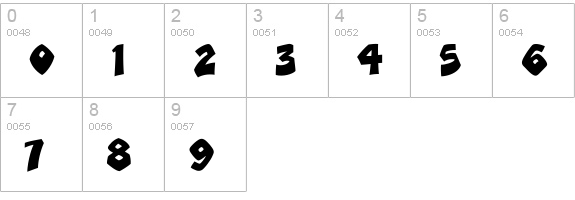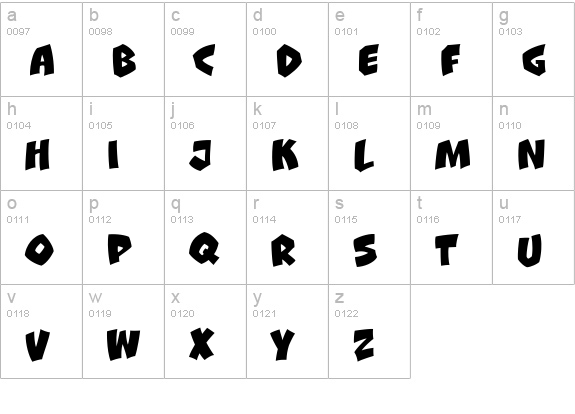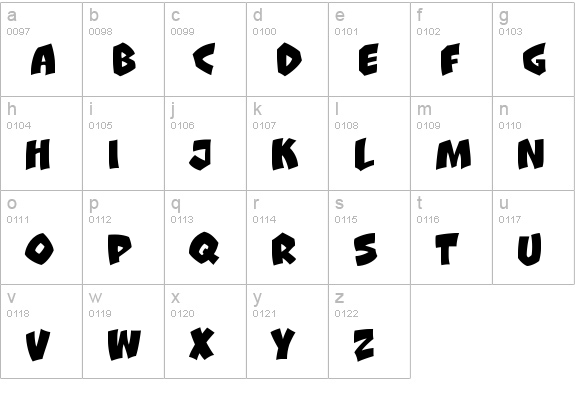
CCClobberinTime-Smooth Font Details
Introducing CCClobberinTime-Smooth font, a versatile and stylish typeface that will add a unique touch to your design projects. This font features a smooth and modern design, making it perfect for a wide range of applications including branding, logos, packaging, posters, and more. The clean lines and sleek curves of CCClobberinTime-Smooth font give it a professional and sophisticated look that will make your text stand out. Best of all, CCClobberinTime-Smooth font is completely free to download at FontsMarket.com. This means you can add this stylish font to your collection without any cost, making it a valuable resource for all your design needs. Don't miss out on the opportunity to enhance your projects with CCClobberinTime-Smooth font - download it today and take your designs to the next level!